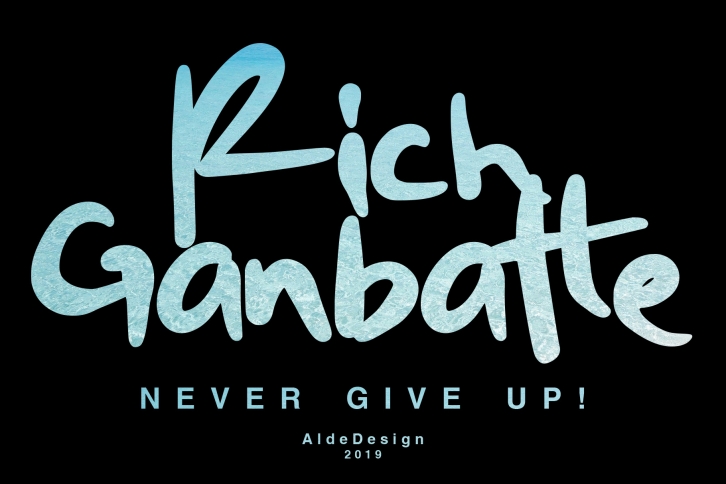
Rich Ganbatte is a trendy and unique font with an authentic style. It was designed by aldedesign and it's a great choice for creative people who need such a font. It was released on July 20, 2019 and the file size is 6.67 MB. Rich Ganbatte will add an organic vibe to any design idea!